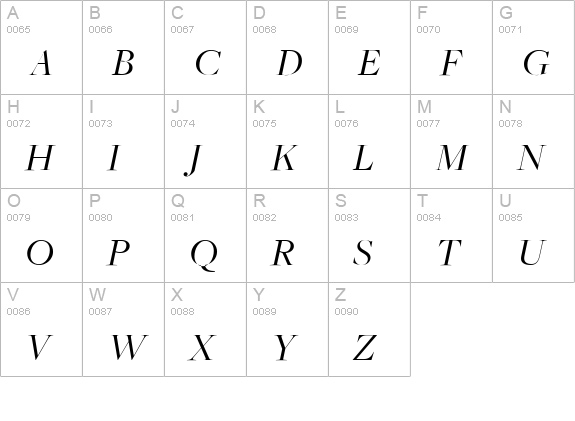
FreightBigBookItalic Font Details
FreightBigBookItalic is a striking and versatile typeface that exudes sophistication and modernity. Its sleek design and elegant italics make it a perfect choice for conveying a sense of professionalism and style in any project. With its clean lines and distinctive curves, FreightBigBookItalic adds a touch of refinement to any text. What sets this font apart is that it is available for free download at FontsMarket.com. This means that you can easily access this high-quality typeface without any cost, making it a valuable addition to your font collection. Whether you're designing a website, creating marketing materials, or working on a print project, FreightBigBookItalic offers a timeless appeal that is sure to elevate your design to the next level. Don't miss out on the opportunity to enhance your projects with the elegance and sophistication of FreightBigBookItalic. Download it for free today and take your design to new heights.